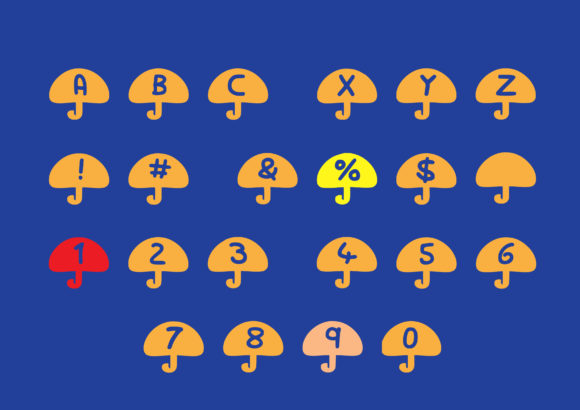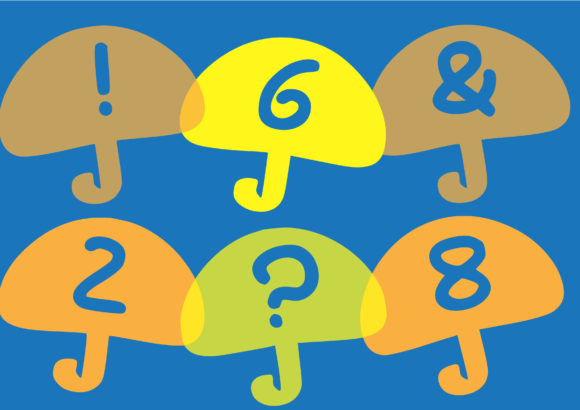
Introduction to Play Umbrella Font
This fun decorative font has got you covered on rainy days.
Play Umbrella can elevate the appearance and entertainment level of any creative project you have coming up .
Key Features of Play Umbrella Font
Why Choose Play Umbrella Font?
Play Umbrella Font offers exceptional quality and versatility, making it a valuable addition to your design toolkit. Whether you’re creating for personal projects or commercial use, Play Umbrella Font delivers professional results.